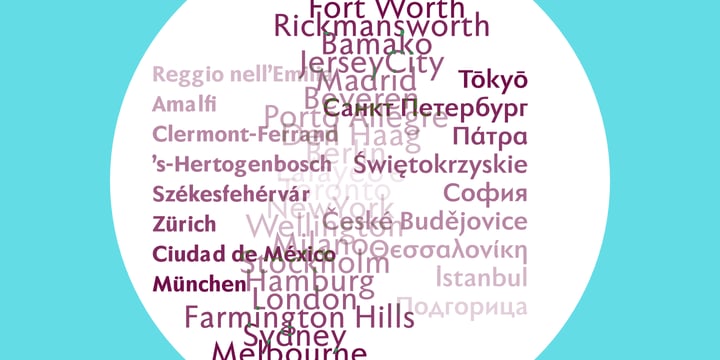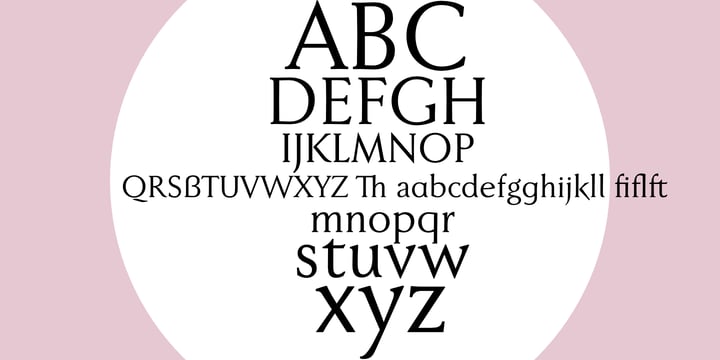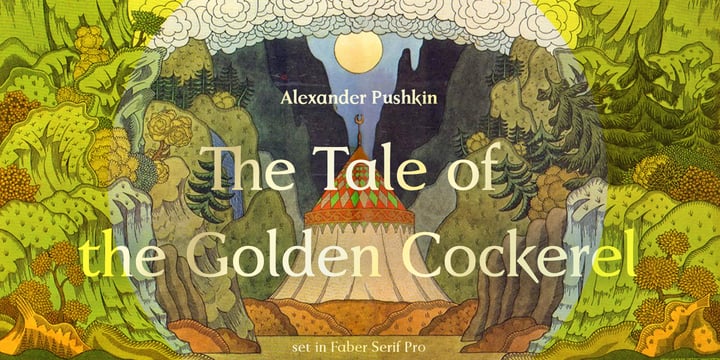
Faber Sans and Faber Serif
Which comes first: sans or serif? I say you will need both.
Faber Sans is a sans serif typeface in the style of the classic modern typefaces of the early 20th century.
Faber Serif is the corresponding Roman, closely connected to the tradition of the very first Roman typefaces from the 15th century.
The forms and proportions in both families are nearly identical.
Numerous OpenType features and the extensive language support make it the perfect all-round font.